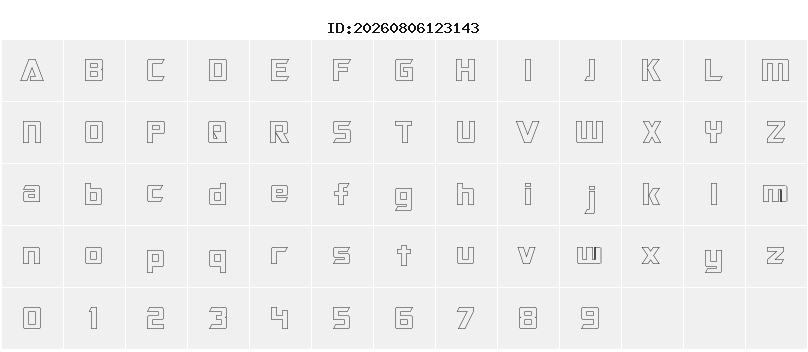
Optimus Hollow Preview
• Font Name: Optimus Hollow
• Full Font Name: Optimus Hollow
• Designer: Neale Davidson
About Optimus Hollow.ttf
Optimus Hollow.ttf is a modern, elegant sans-serif font designed for ultimate readability and visual harmony. Perfect for branding, headlines, web design, and print materials.